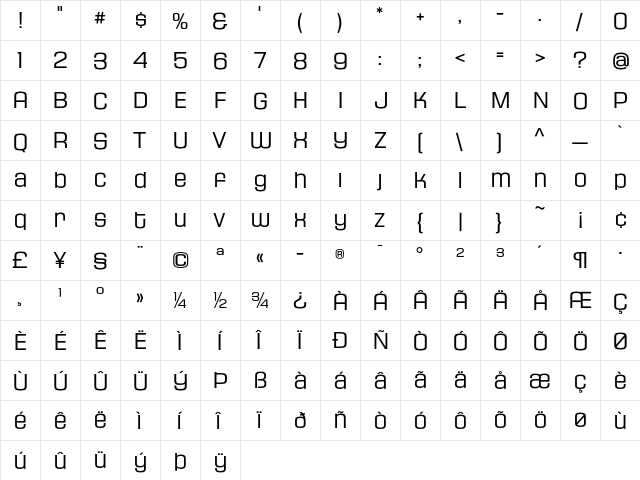
HouseGothicHG23Ext LIGHT2
| Designer | Allen Mercer/Tal Leming |
Design Context for HouseGothicHG23Ext Typeface
HouseGothicHG23Ext has the quiet confidence of well-executed sans-serif typography: versatile, unobtrusive, and dependable at any size. Its slender proportions lend an understated elegance to any composition.
A natural fit for high-end product packaging, luxury brand identities, and refined web typography.
Font Pairing: Pair HouseGothicHG23Ext with a medium or bold serif for headlines — the weight contrast creates an elegant, high-end feel.
Pro Tip: Use HouseGothicHG23Ext with generous tracking and line-height for the most luxurious effect — light sans-serifs reward spacious, considered layouts.